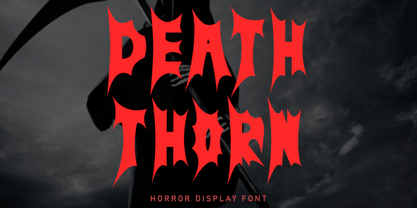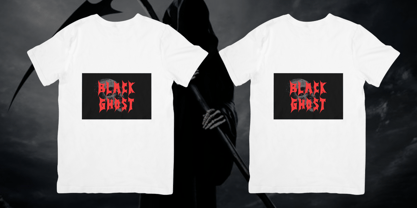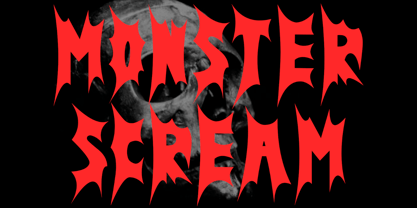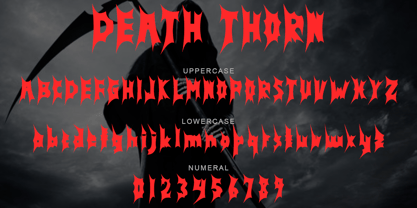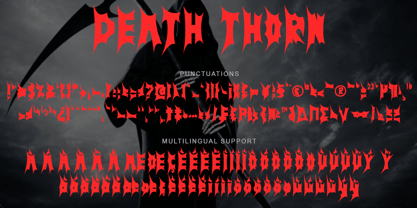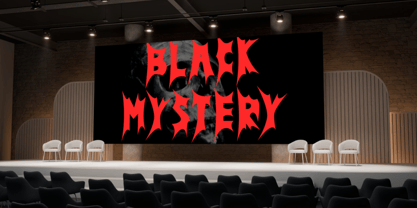
Death Thorn
by Yoga Letter
The Death Thorn Font Family was designed by Isroni Yoga Prasetya and published by Yoga Letter. Death Thorn contains 1 styles. More about this family
"Death Thorn" is a spooky and unique display font. This font has thorns on each letter and is equipped with uppercase, lowercase, numerals, punctuations and multilingual support. Very suitable for posters, banners, branding, stickers, logos, prints, halloween, summer, spring, easter and others.
Designers: Isroni Yoga Prasetya
Foundry: Yoga Letter